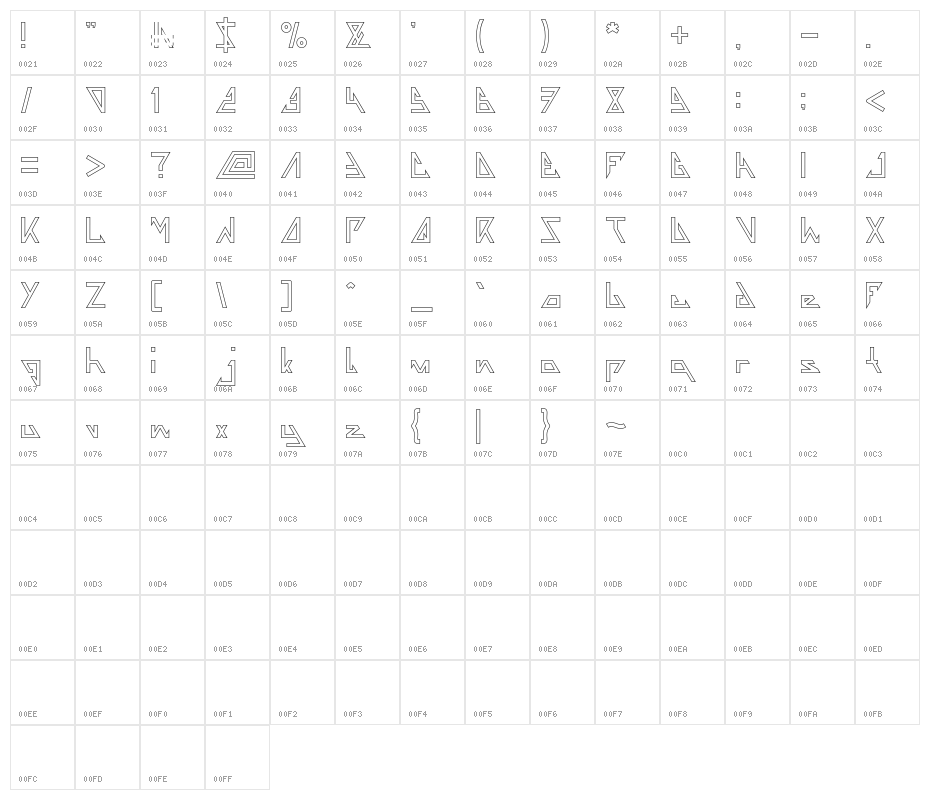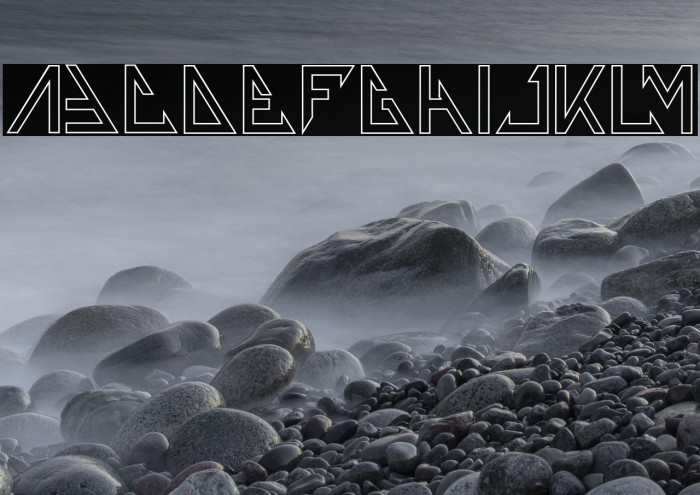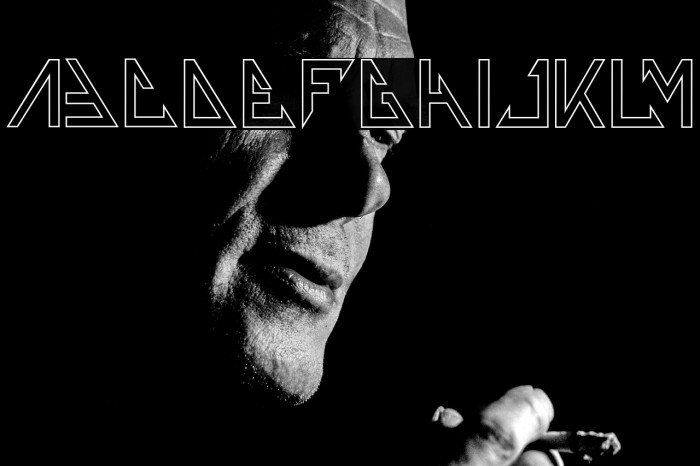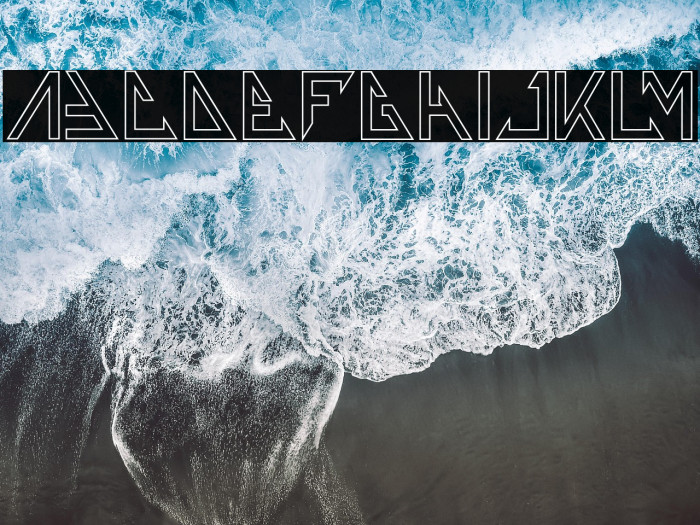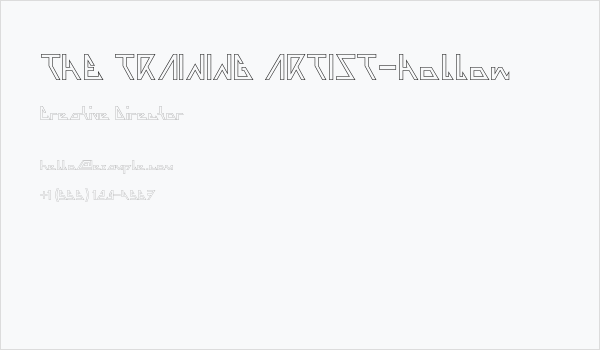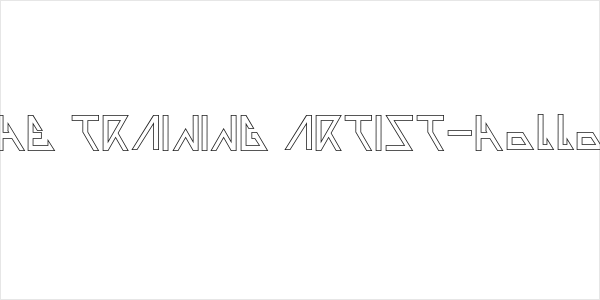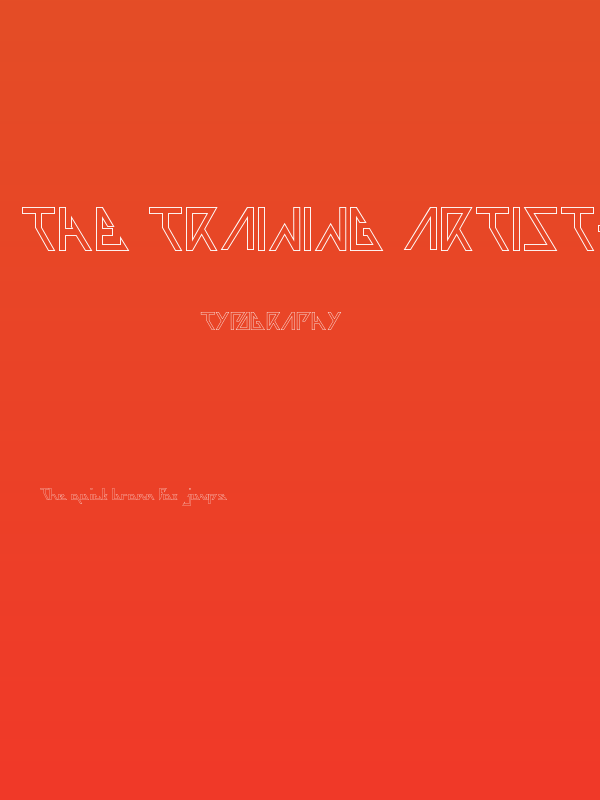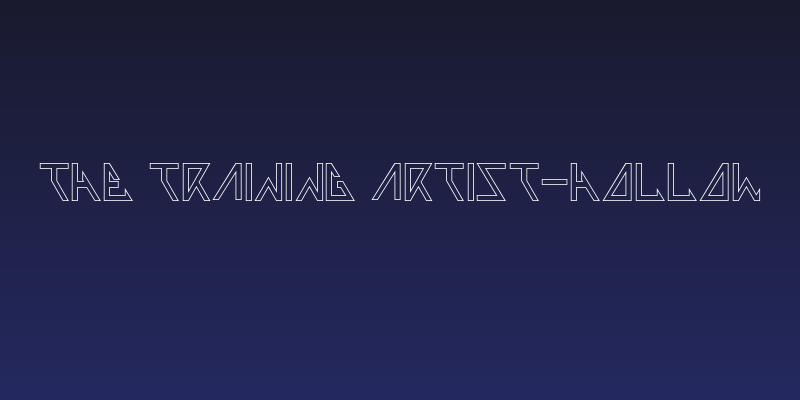
THE TRAINING ARTIST-Hollow Font
THE TRAINING ARTIST-Hollow Description
This font features a geometric, angular design with a hollow outline, creating a futuristic and edgy appearance. The characters are constructed with sharp lines and acute angles, giving them a dynamic and bold look. The uppercase and lowercase letters maintain a consistent style, with a strong emphasis on diagonal lines and symmetry. The numbers and special characters follow the same design principles, ensuring uniformity across all glyphs. This font's unique style makes it stand out, ideal for projects that require a modern and unconventional aesthetic.
| Overall Style | Futuristic, Edgy |
| Proposed Projects | Ideal for sci-fi themed designs, video game titles, posters, and branding that requires a modern, edgy look. |